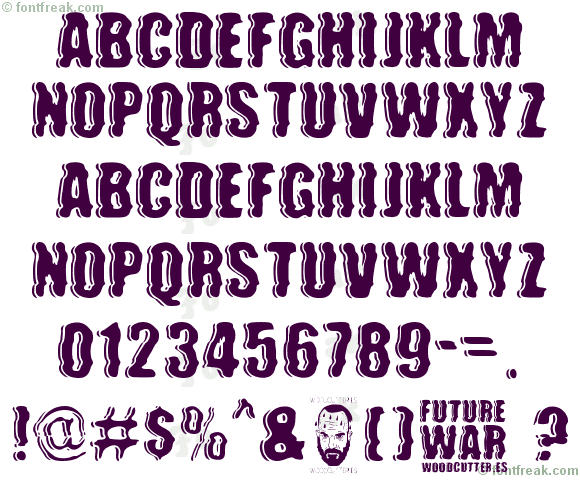
future war
About future war
The Future War font by Woodcutter Manero is a striking display typeface that combines boldness with an intriguing sense of playfulness. Characterized by its unique, uneven stroke weight, this font exhibits a whimsical quality that catches the eye. The letters are fluid and dynamic, with a slightly exaggerated form that enhances their visual impact. The contrast between thick and thin areas adds depth, making it an excellent choice for attention-grabbing designs. The spacing is generous, allowing for easy readability while maintaining a distinctive style.
This font is versatile and can be effectively utilized in various creative contexts. It's particularly well-suited for movie posters, where its bold presence can convey a sense of drama and excitement. Additionally, the Future War font works brilliantly for video game branding, capturing the essence of adventure and action. Graphic designers may also find it fitting for promotional materials, such as flyers or banners, where a strong visual statement is needed. Moreover, small business owners looking to create a memorable brand identity will appreciate its unique flair, making it ideal for logos and product packaging.
The target audience for the Future War font includes graphic designers, small business owners, and content creators who seek to make a lasting impression. Its freeware license makes it accessible for a wide range of users, encouraging creativity without the burden of licensing fees.
What sets the Future War font apart is its perfect blend of boldness and whimsy, making it a standout choice for any project that aims to evoke a sense of excitement or adventure. With its distinctive style and versatility, the Future War font free download is an excellent addition to any designer's toolkit.